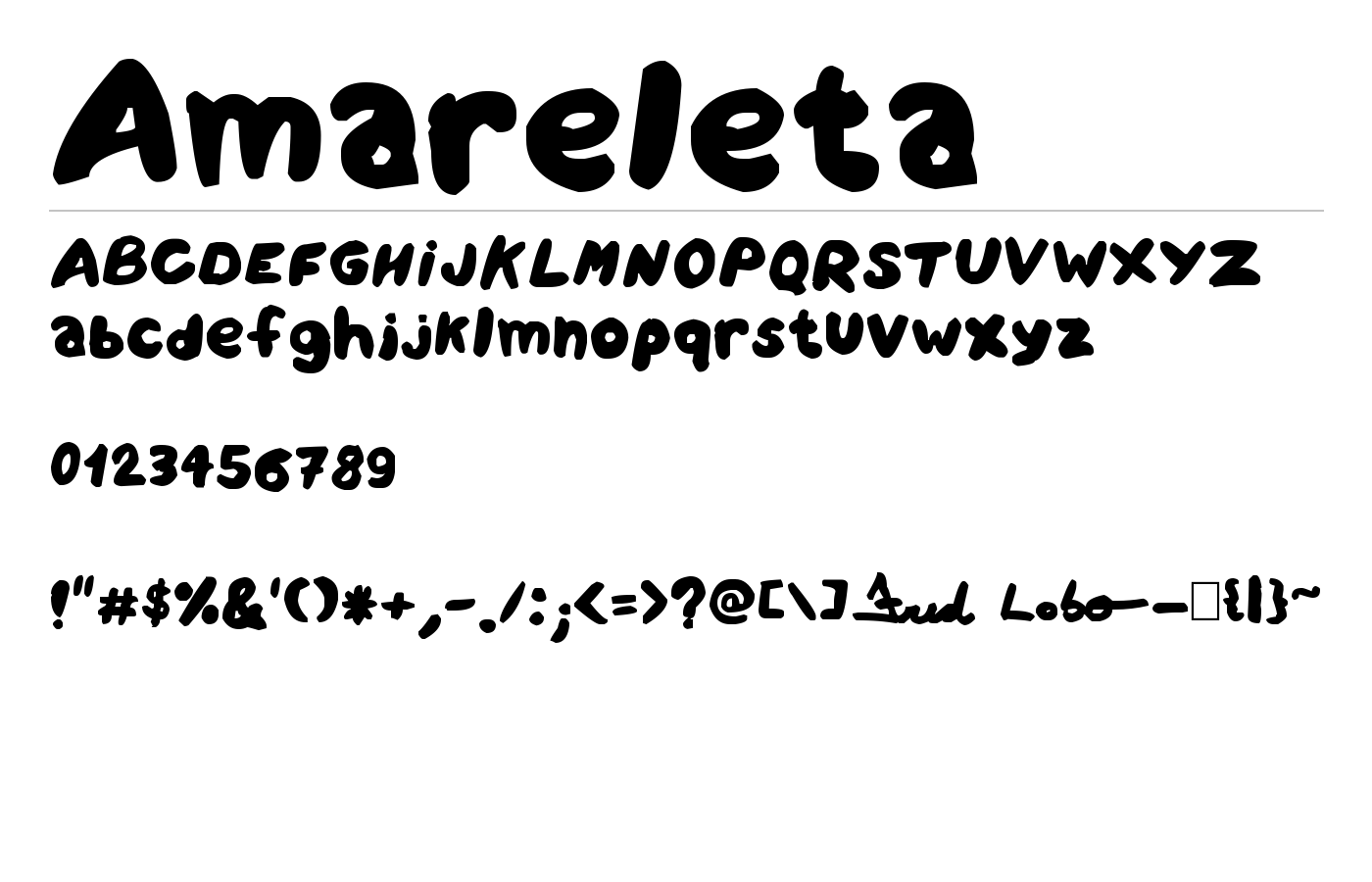
Amareleta is a bold, playful handwritten sans serif font with a casual and friendly vibe, featuring thick, rounded strokes and irregular shapes that create an informal, approachable feel. Its lively character and clear legibility make it ideal for fun branding, children's books, posters, and any design seeking a warm, personal touch. This font stands out in creative and informal settings where a cheerful and energetic personality is desired.
Amareleta Font
About Amareleta Font